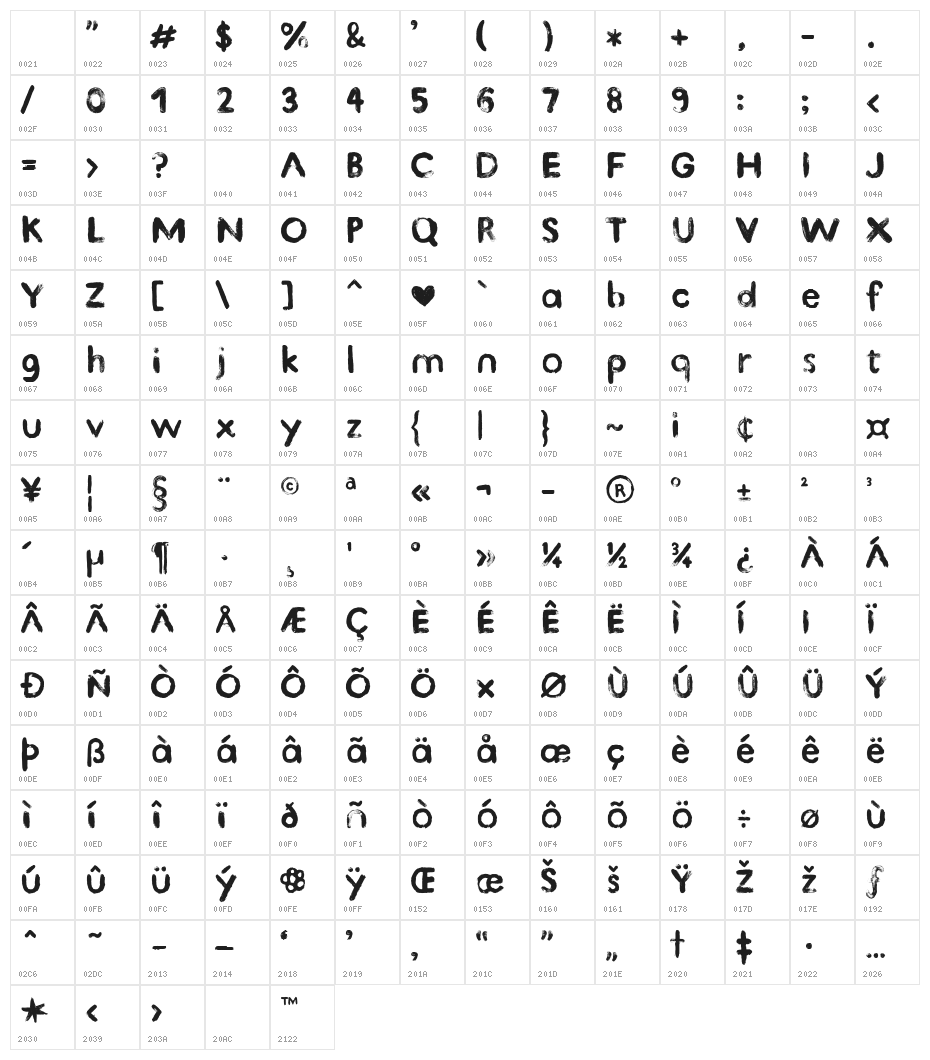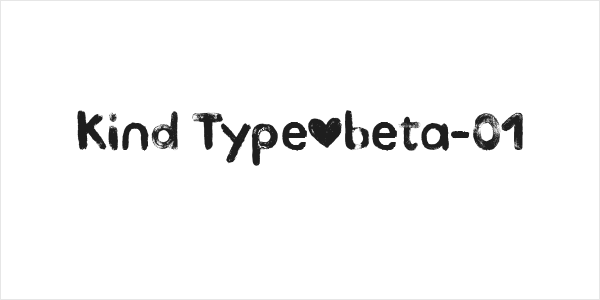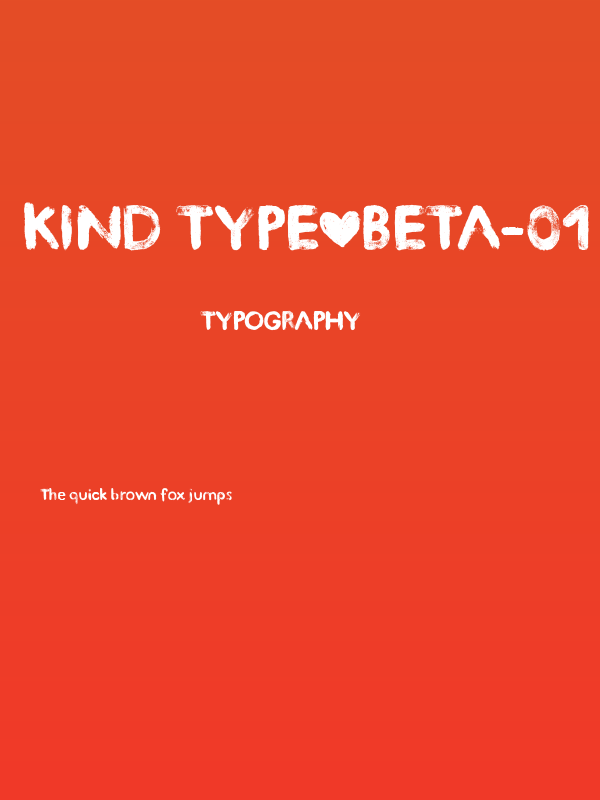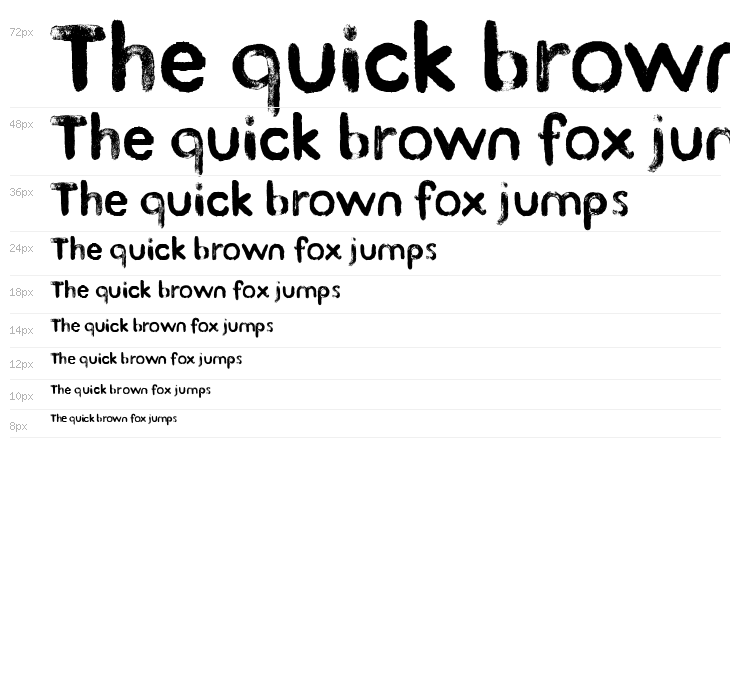
Kind Type_beta-01 Font
Kind Type_beta-01 Description
This font features a bold, textured style that mimics the appearance of hand-painted or stamped letters. Each character has a rough, uneven edge, giving it a rustic and organic feel. The uppercase and lowercase letters maintain a consistent width, while the numbers and special characters follow the same design aesthetic. The texture adds a dynamic and artistic quality, making it suitable for projects that require a handmade or vintage look. The font's boldness ensures readability even with its unique texture, making it versatile for various design applications.
| Proposed Projects | Ideal for posters, branding, packaging, and any design needing a handmade or vintage touch. |